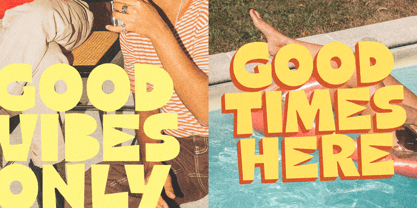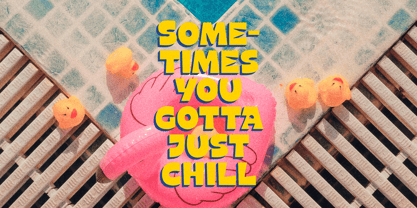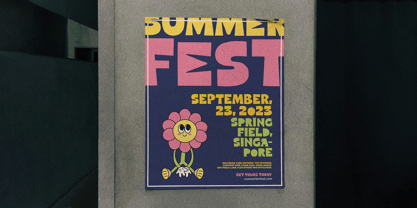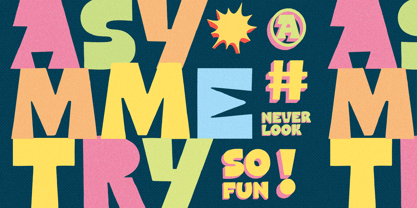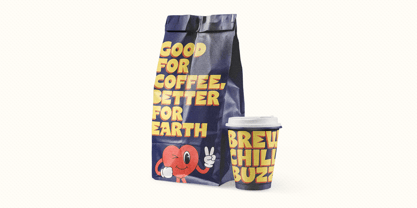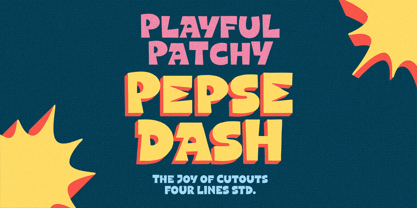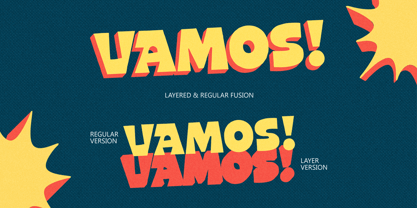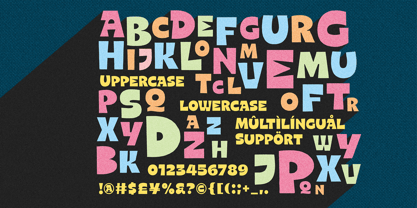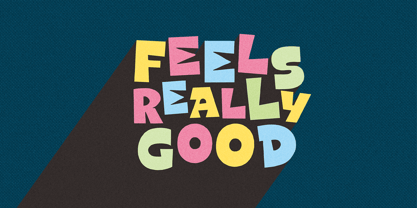
Pepse Dash
The Pepse Dash Font Family was designed by Zain Fahroni and published by Four Lines Std. Pepse Dash contains 2 styles and family package options. More about this family
Pepse Dash is a bold, cheerful cutout-style display font inspired by the playful charm of paper shapes. It comes in two styles: Regular and Layer — perfect to use separately or together for vibrant, layered typography that bursts with energy.
Ideal for posters, packaging, book covers, social media graphics, and more, Pepse Dash features irregular edges and dynamic forms that give every word a lively, handmade feel. From retro party flyers to colorful kids’ brands and bold headlines, it adds personality and playfulness to any project.